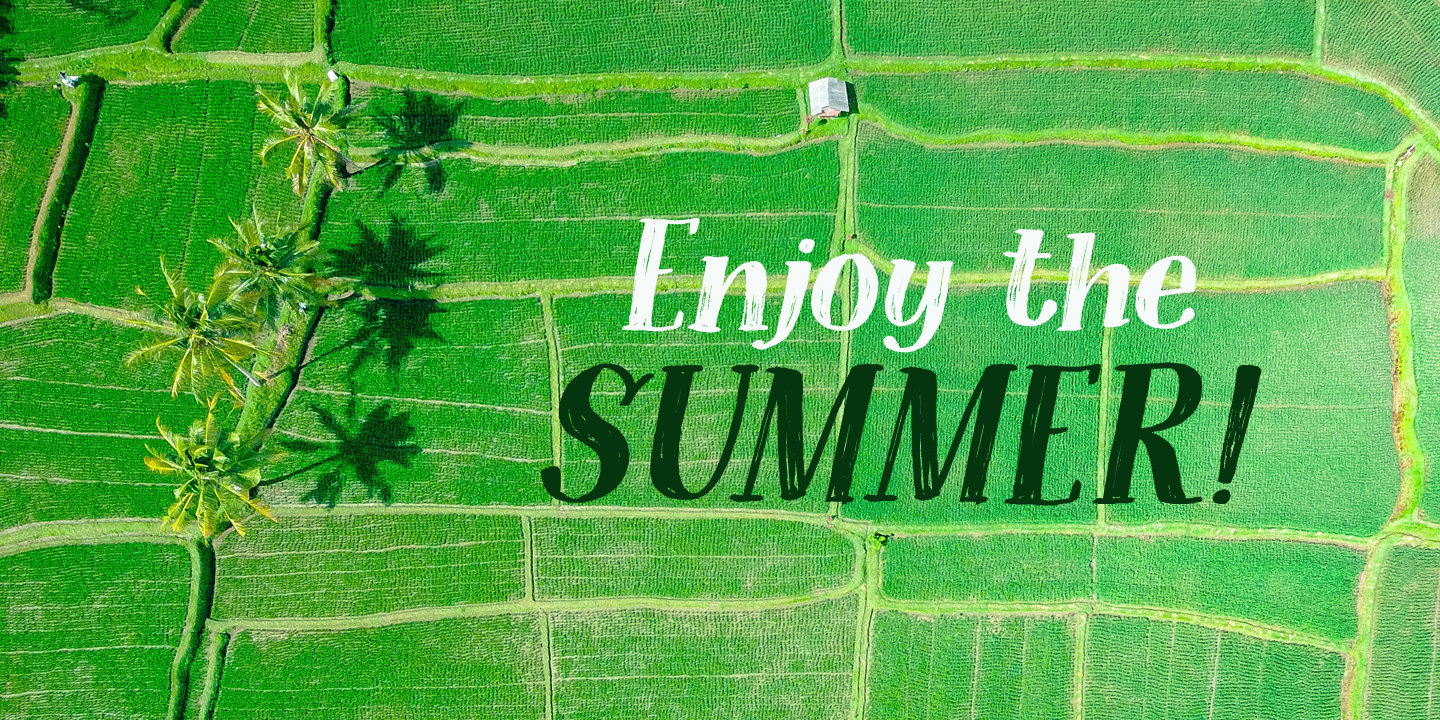
Coconut Punch Font is a wonderfully playful and distinctly tropical-inspired typeface, perfectly suited for designs that aim to evoke fun, relaxation, and a vibrant, summery vibe. Imagine it gracing the labels of refreshing juice drinks, adding a cheerful touch to vacation resort branding, or creating lively headlines for beach-themed events. Its often bouncy baseline and friendly, rounded characters also make it an excellent choice for crafting unique children's book titles, designing engaging social media graphics for travel agencies, and developing charming packaging for summer snacks. Whether you're aiming for a whimsical, adventurous, or genuinely sunny aesthetic, Coconut Punch Font delivers an instantly cheerful and inviting visual presence.
What makes Coconut Punch Font truly exciting is its ability to infuse designs with an undeniable sense of joy and lightheartedness. It's a font that doesn't just convey words; it transmits a feeling of carefree summer days and delightful moments, making it highly effective for brands and projects that want to create a fun and approachable connection with their audience. Its handmade feel, often with slight irregularities, adds to its charm and authenticity, making it stand out from more rigid typefaces. Coconut Punch Font offers a unique blend of playful energy and inviting warmth, making it a fantastic choice for any design where you want to evoke happiness and a relaxed, vacation-like atmosphere.
The Coconut Punch Font family typically focuses on enhancing its distinctive, whimsical style, often featuring a core set of styles that highlight its playful characteristics. While it may not have the extensive weight range of a more formal text font, you can often find a standard Regular weight, sometimes complemented by a slightly bolder version for emphasis or a more delicate variant for lighter touches. Many versions also include charming ligatures or alternate characters that add to its unique, handcrafted appeal, providing more creative options for designers. For anyone looking for Coconut Punch Font Free Download, exploring these delightful nuances will help you craft truly engaging and spirited designs that pop with personality.